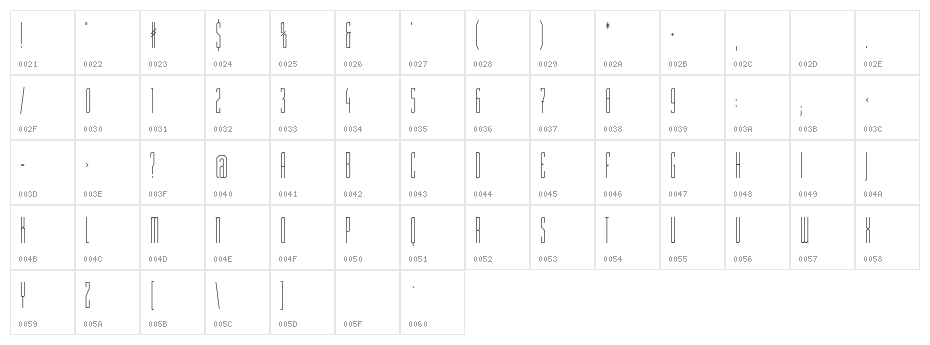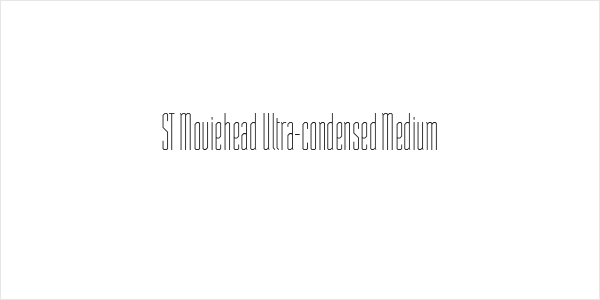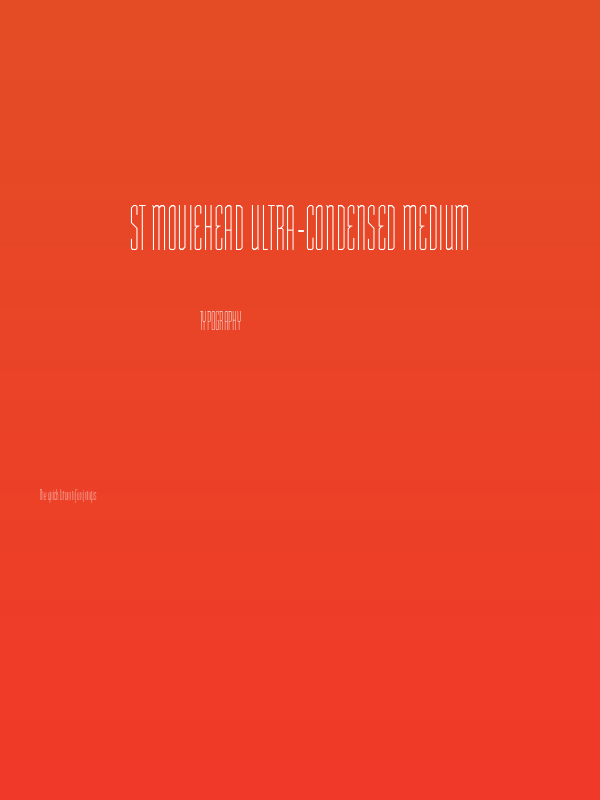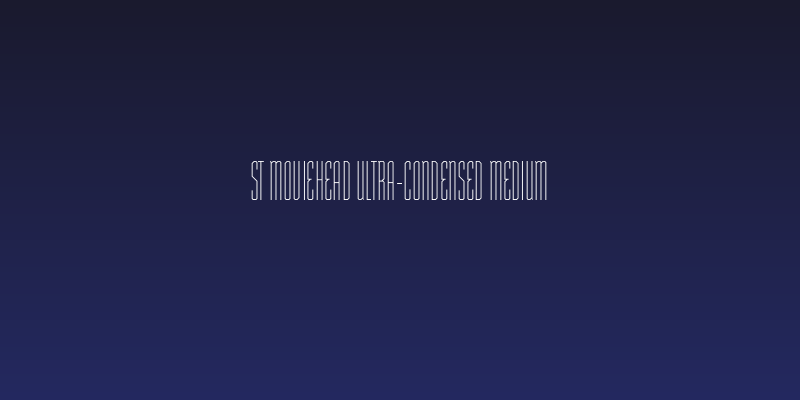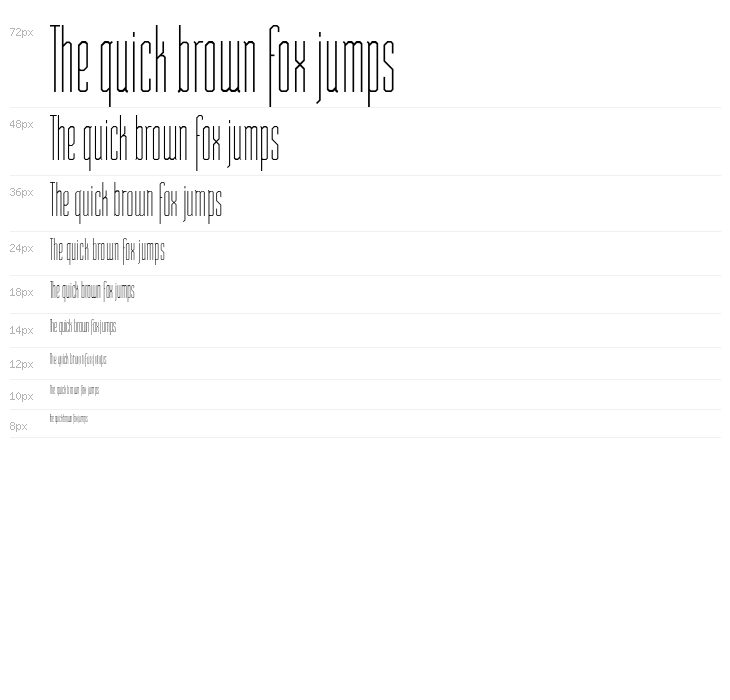
ST Moviehead Ultra-condensed Medium Font
ST Moviehead Ultra-condensed Medium Description
This font features an ultra-condensed style with tall, narrow characters that create a striking and modern appearance. The uppercase and lowercase letters maintain a consistent height, emphasizing verticality and elegance. The numerals and special characters align seamlessly with the overall aesthetic, providing a cohesive look. The thin strokes and minimal contrast contribute to a sleek and sophisticated feel, making it ideal for projects that require a contemporary and stylish touch.
| Proposed Projects | Ideal for movie posters, fashion magazines, modern branding, and editorial design. |